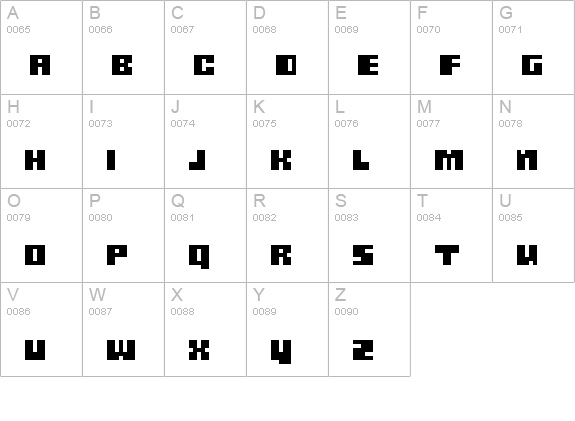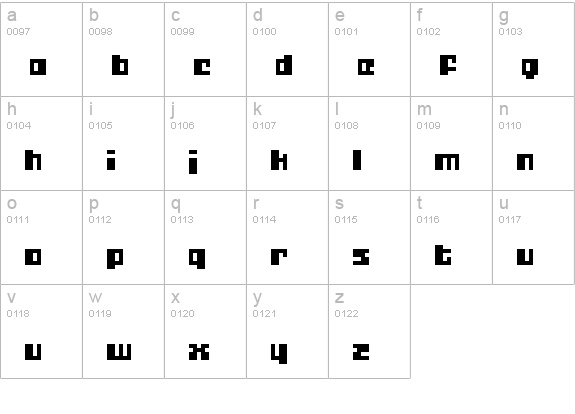
Gubblebum BlacknBlocky Font Details
Gubblebum BlacknBlocky font is a bold and eye-catching typeface that exudes confidence and modernity. Its thick, blocky letters make a strong statement and are perfect for creating impactful designs. This versatile font is suitable for a wide range of projects, from posters and logos to branding and social media graphics. What makes Gubblebum BlacknBlocky font even more appealing is that it is available for free download at FontsMarket.com. This means that you can easily access this stylish font and use it in your projects without any cost. Don't miss out on the opportunity to add Gubblebum BlacknBlocky font to your font collection today!